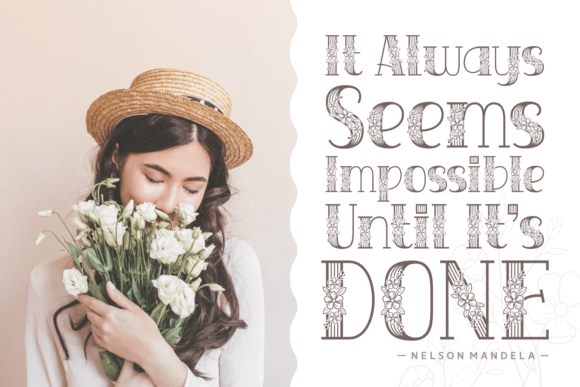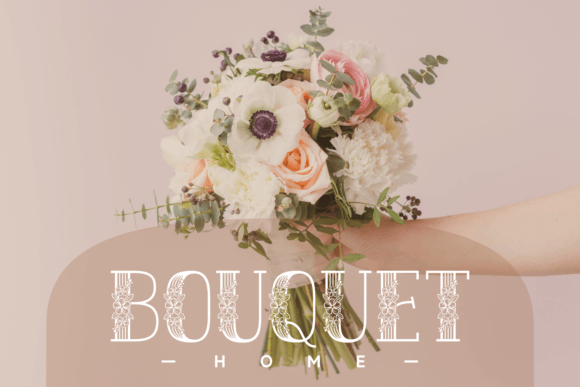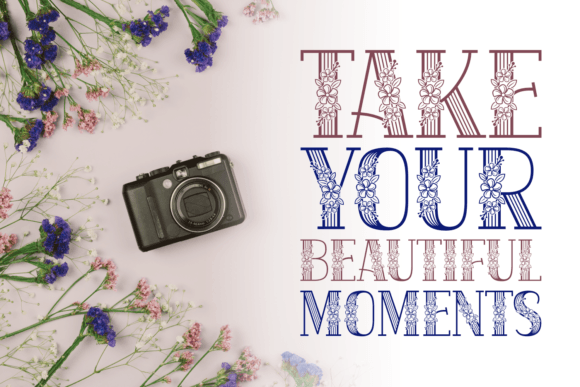
Introduction to Gloria Belova Font
Gloria Belova is a floral decorative font that exudes feminine beauty and grace.
Delicate flowers and leaves adorn the letters, creating a sense of whimsy and romance The flourishes and serifs add a touch of elegance and sophistication, while the bold strokes give it a strong presence.
Gloria Belova Font offers exceptional quality and versatility, making it a valuable addition to your design toolkit. Whether you’re creating for personal projects or commercial use, Gloria Belova Font delivers professional results.